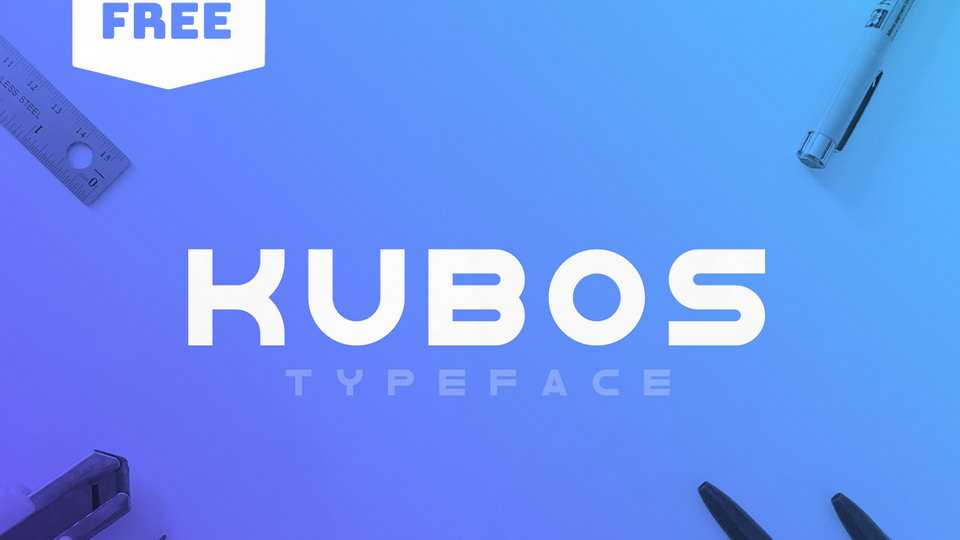
Download Kubos typeface, a modern geometric display font family. Every character of Kubos based on the square grid, all glyphs can come together as perfect cube.
Designer: Georges Yannopoulos